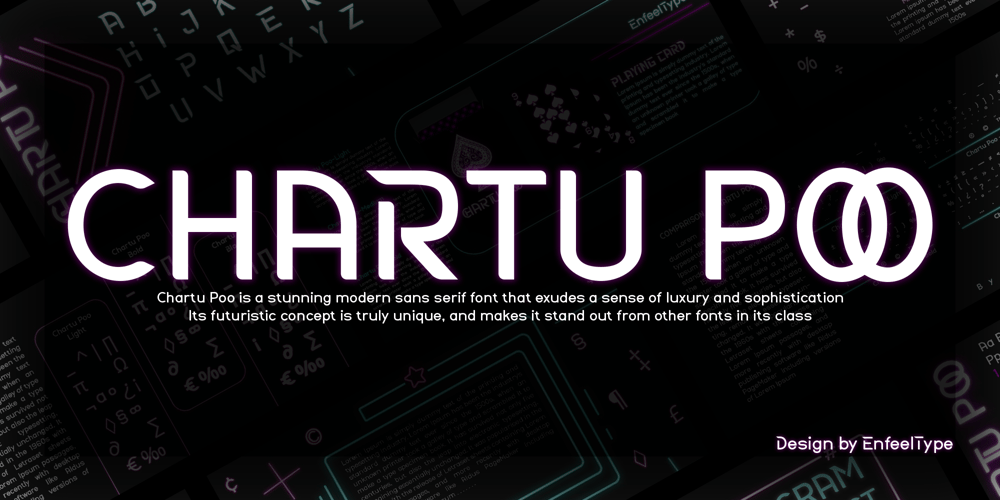
Chartu Poo Font Family was designed by Seyfullah TEMIZ and published by Enfeeltype. Chartu Poo contains 9 styles and family package options. Chartu Poo is a stunning modern sans serif font that exudes a sense of luxury and sophistication. Its futuristic concept is truly unique, and makes it stand out from other fonts in its class. The sleek lines and bold curves of Chartu Poo give it a sense of elegance and refinement, while also conveying a sense of modernity and innovation. One of the things that sets Chartu Poo apart is its versatility. It can be used in a wide range of design projects, from logos and branding materials to website designs and advertising campaigns. Whether you’re looking to create a bold and impactful headline, or a subtle and understated body copy, Chartu Poo is the perfect font for the job. Another great feature of Chartu Poo is its readability. Despite its bold and unique design, this font is incredibly easy to read, making it a great choice for both print and digital media. Whether you’re designing a brochure or a website, Chartu Poo will ensure that your message is conveyed clearly and effectively. In short, if you’re looking for a modern sans serif font that combines luxury, sophistication, and innovation, look no further than Chartu Poo. Its unique and futuristic concept, combined with its versatility and readability, make it the perfect choice for any design project.